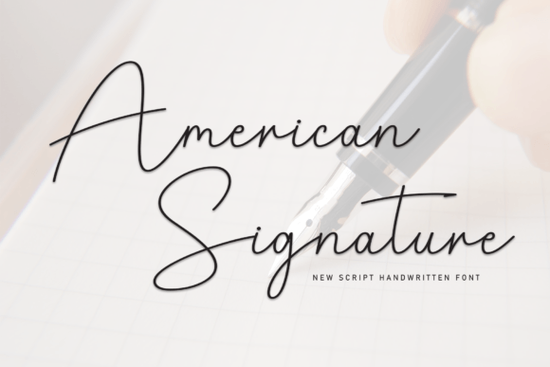
If you're looking for a handwritten font that feels both personal and polished something that works just as well on a wedding invitation as it does on a small-batch soap label you’ll likely appreciate American Signature Font. It’s not overly ornate, but it carries quiet confidence: smooth curves, balanced spacing, and a natural flow that mimics real pen-on-paper cursive. No shaky lines or forced flourishes just clean, elegant handwriting you can trust for professional-looking projects.
When does American Signature Font work best?
This font shines where warmth and intention matter most. Think hand-lettered quotes for Instagram posts, boutique business cards, or custom greeting cards sold at local craft fairs. Because its letterforms are consistent yet relaxed, it scales well from tiny text on a gift tag to large-format wall art. It’s especially helpful if you’ve tried other script fonts and found them too stiff (like some formal calligraphy styles) or too casual (like playful brush scripts). American Signature sits comfortably in the middle: refined enough for a luxury brand, approachable enough for a handmade candle shop.
It’s also a solid choice for print-on-demand sellers who want to stand out without overcomplicating design. You don’t need advanced vector skills to make something beautiful with it pair it with a simple sans-serif for contrast, or layer it over textured paper backgrounds for instant depth.
How does it compare to other popular script fonts?
Every script font has its own personality and knowing the subtle differences helps you choose the right one for your project. For example, Amberly Route leans slightly more romantic and airy, with delicate entry and exit strokes ideal for feminine branding. Amibas offers tighter spacing and bolder contrast, making it great for logos that need to hold up at small sizes. If you prefer something with more traditional calligraphic structure, Masterline Calligraphy gives you authentic pen-angle variation and graceful swashes. And for lighthearted, youthful energy think birthday party invites or kids’ activity sheets Preppy Writing adds friendly bounce without sacrificing legibility.
Compared to those, American Signature Font stands out for its even rhythm and gentle consistency. It doesn’t rely heavily on alternate characters or contextual ligatures to look good so it’s beginner-friendly in design tools like Canva or Cricut Design Space. That makes it practical for hobbyists who want professional results without digging into OpenType features.
One thing to keep in mind: like most high-quality script fonts, American Signature Font isn’t designed for body text or long paragraphs. Use it for headlines, short phrases, or decorative accents not for product descriptions or blog posts. That’s not a limitation it’s intentional design. Matching it with a clear, neutral sans-serif (like Montserrat or Poppins) creates balance and improves readability across your layout.
Where else can you find similar styles?
- Test the font at multiple sizes especially at the smallest size you’ll actually use it.
- Pair it with a simple, highly readable sans-serif for contrast and clarity.
- Avoid stretching or skewing the font it breaks the natural rhythm of the letterforms.
- Use the included alternates sparingly just one or two per design keeps it intentional, not busy.
- Preview how it looks printed on your intended paper stock (matte vs. glossy, thick vs. thin) before finalizing.
Start with a single word or phrase “Welcome,” “Handmade with Love,” or your shop name and build outward from there. Small, thoughtful uses often have more impact than trying to fill every corner with script.